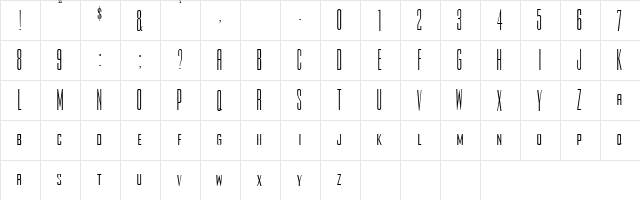
Rothman Plain
Design Context for Rothman Typeface
Rothman offers clean, dependable letterforms without strong stylistic allegiance, making it a practical choice for designers who need flexibility.